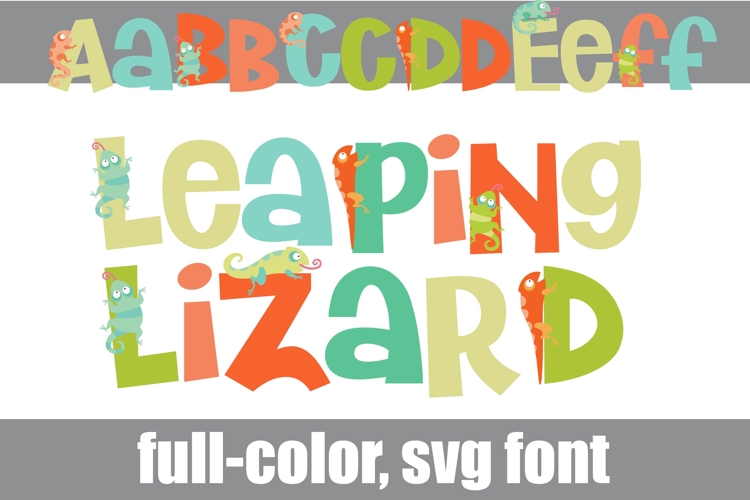
Leaping Lizards Color Font
This full-color, whimsical font is a fun sans serif with colorful lizards on the uppercase. There is an alt case of additional colors of each letter that you can access through your system's character map.